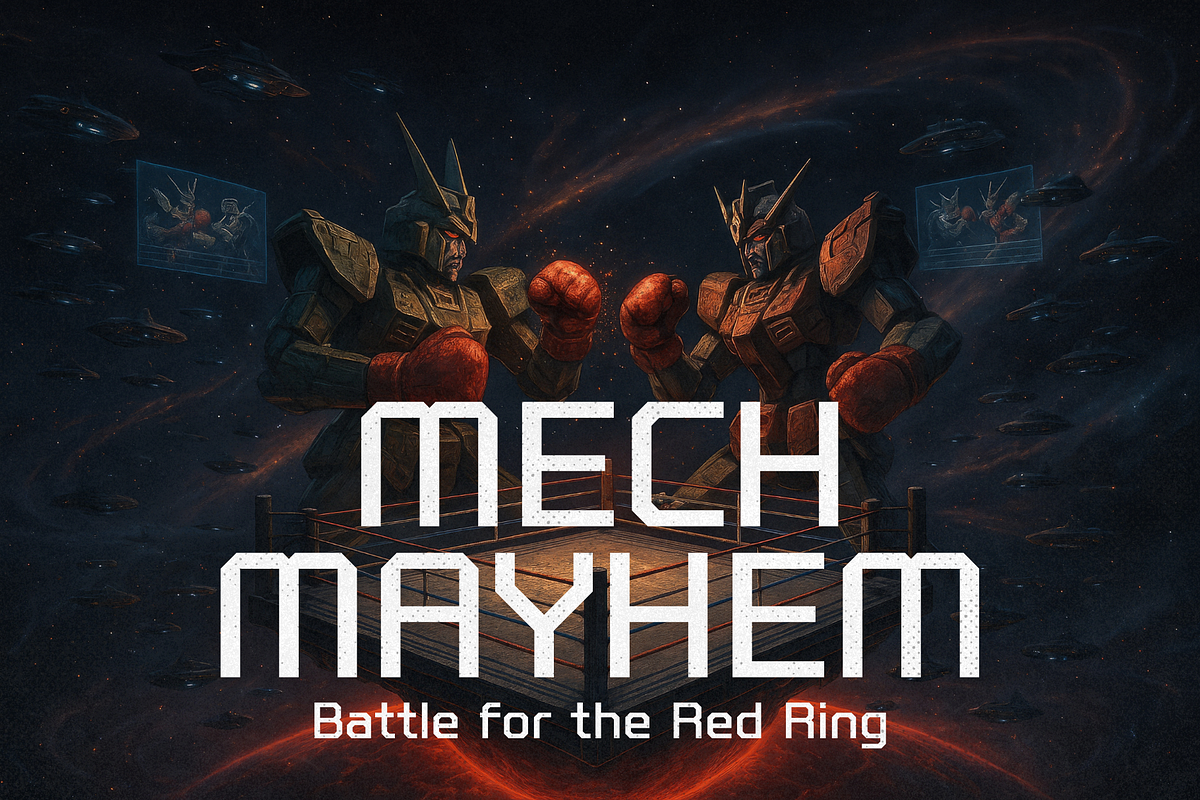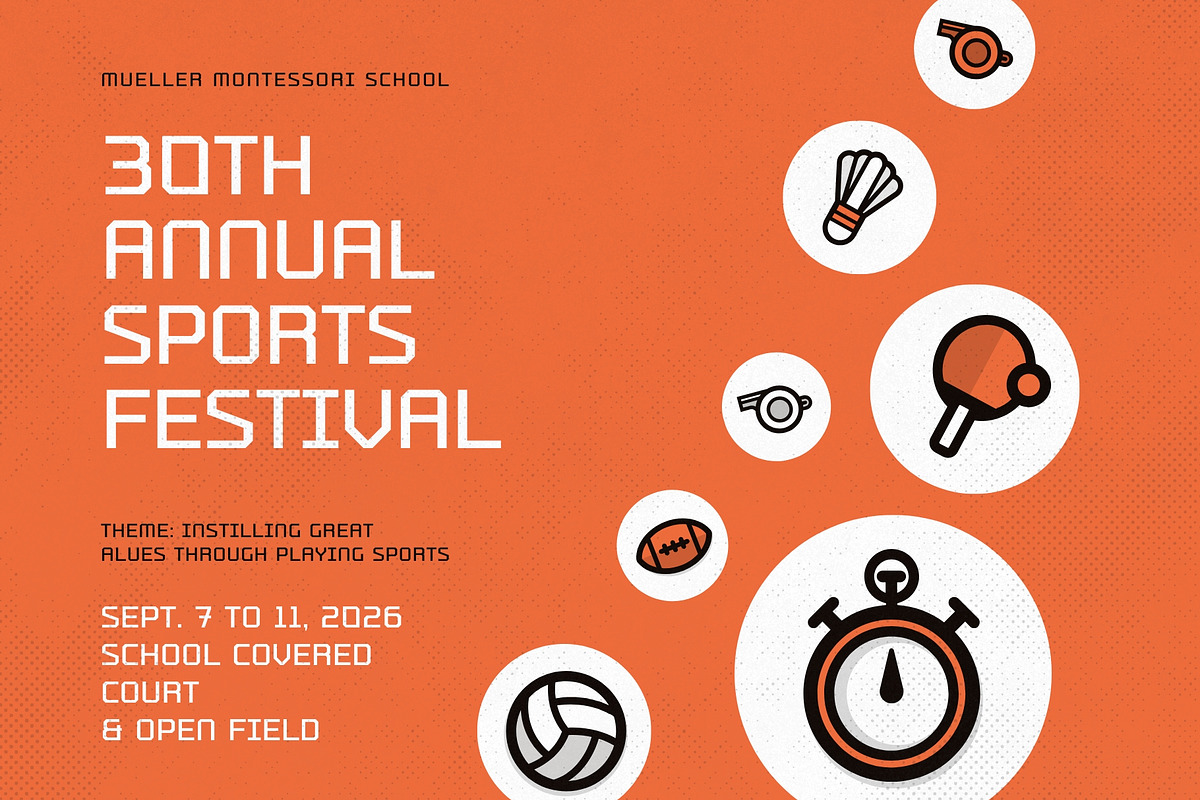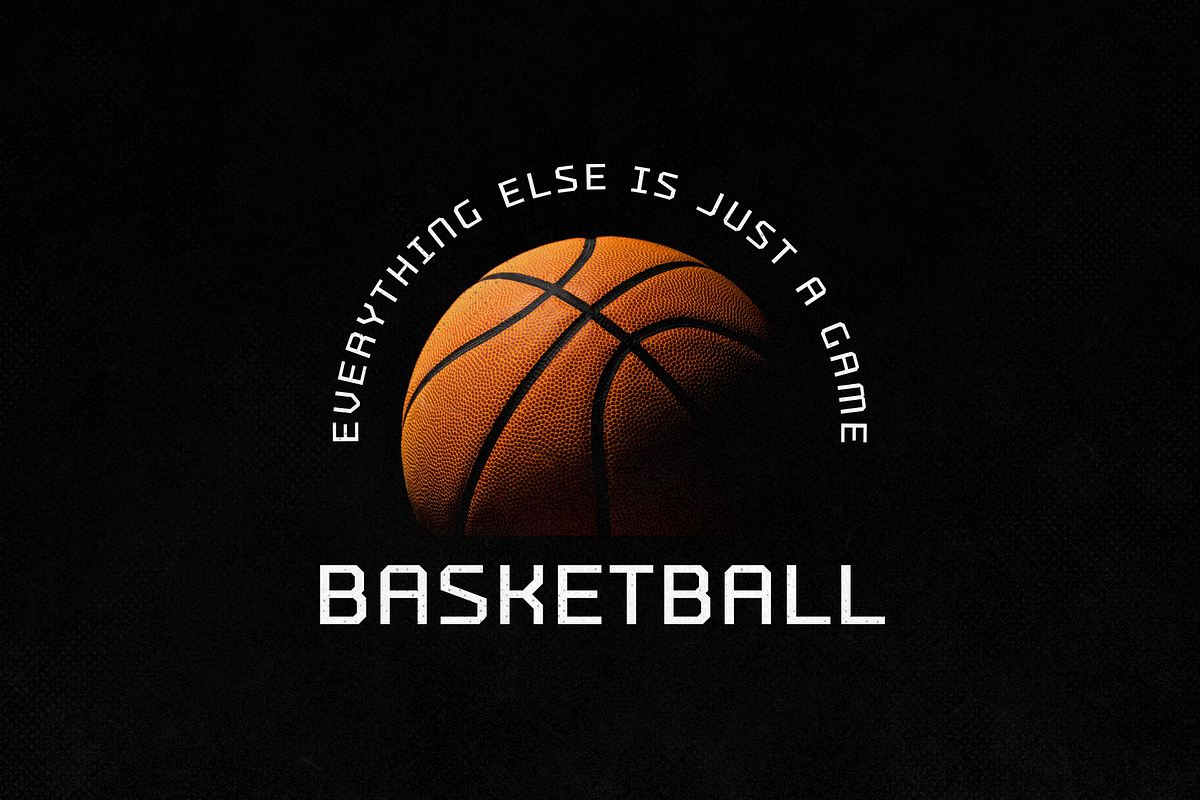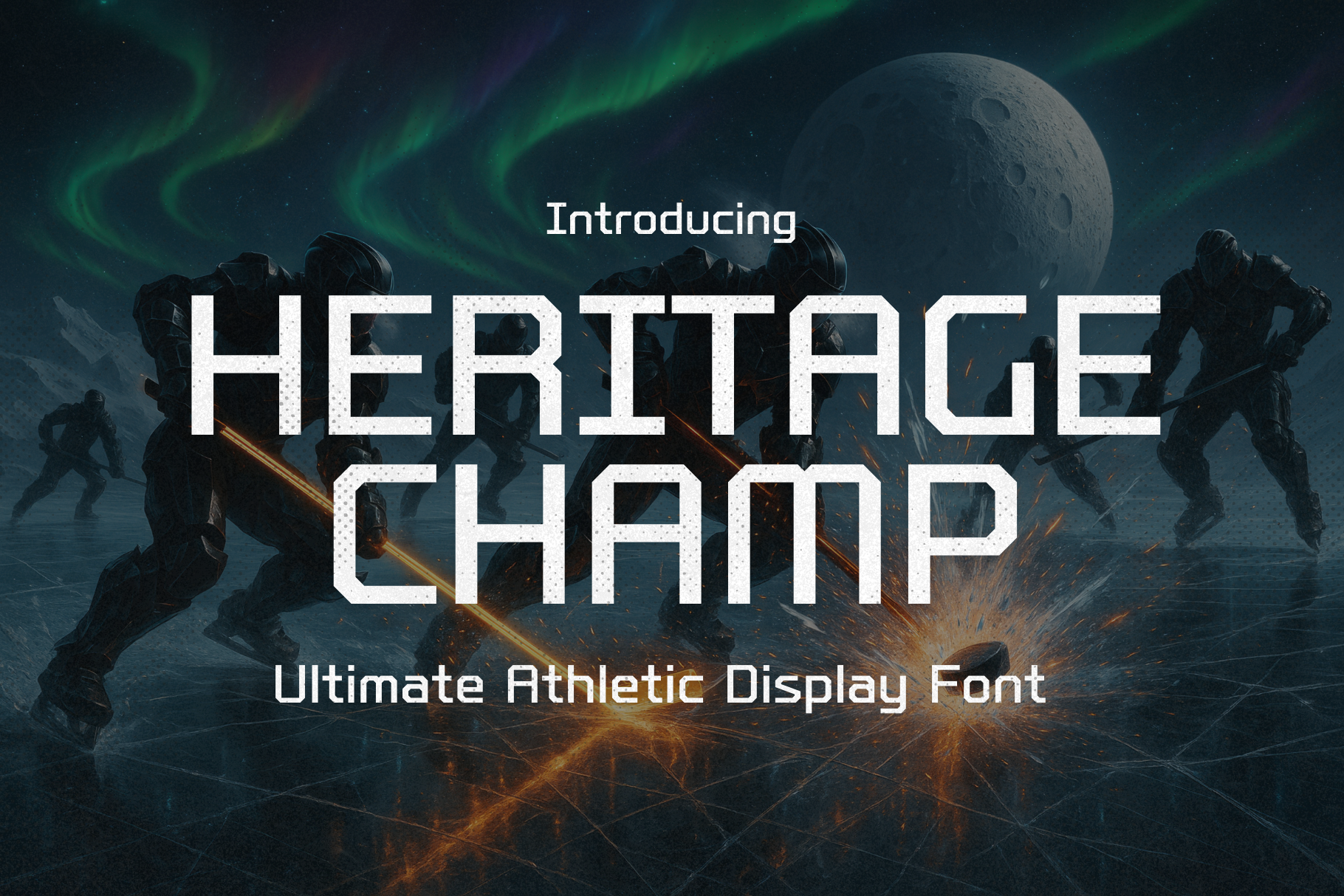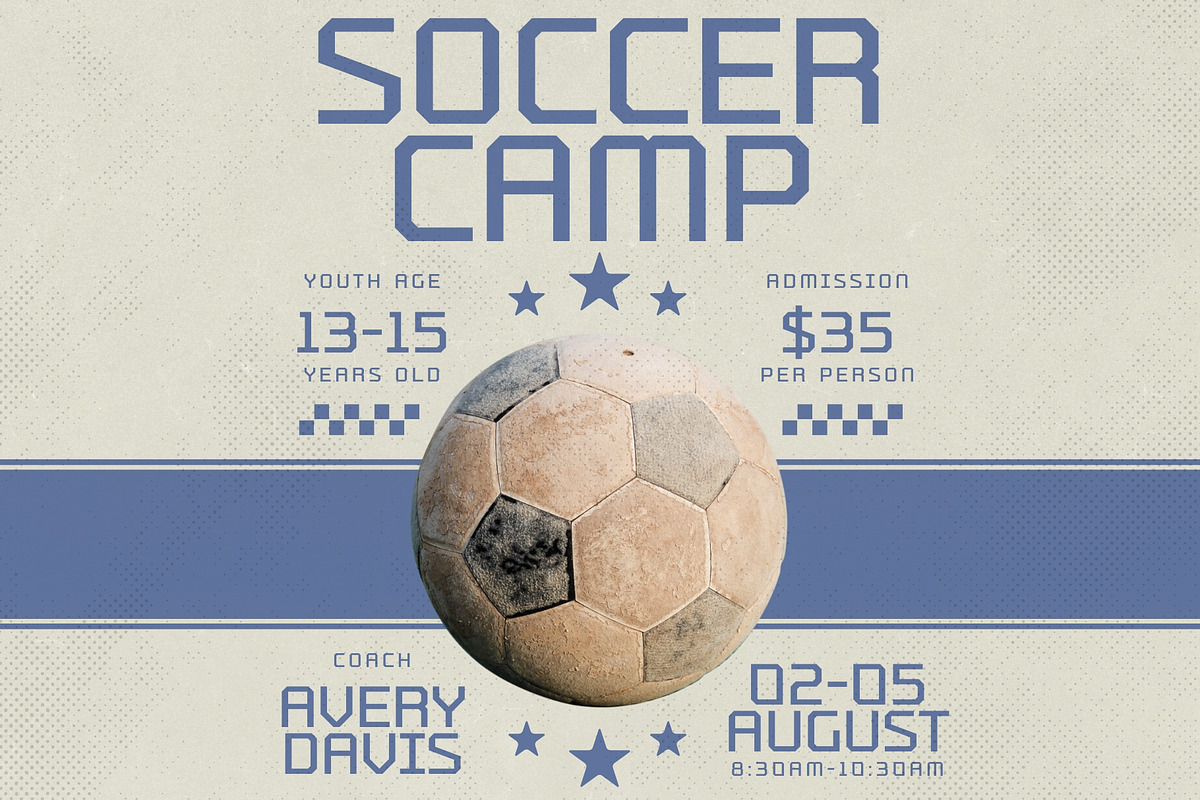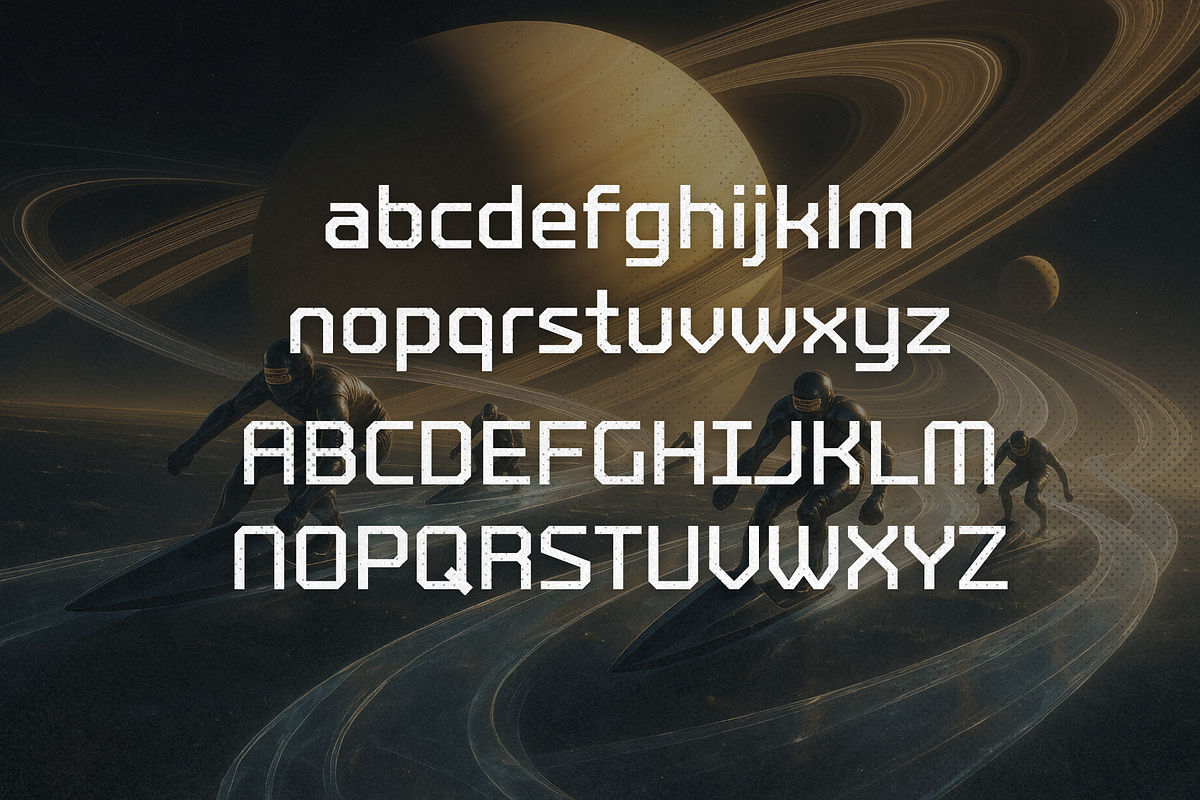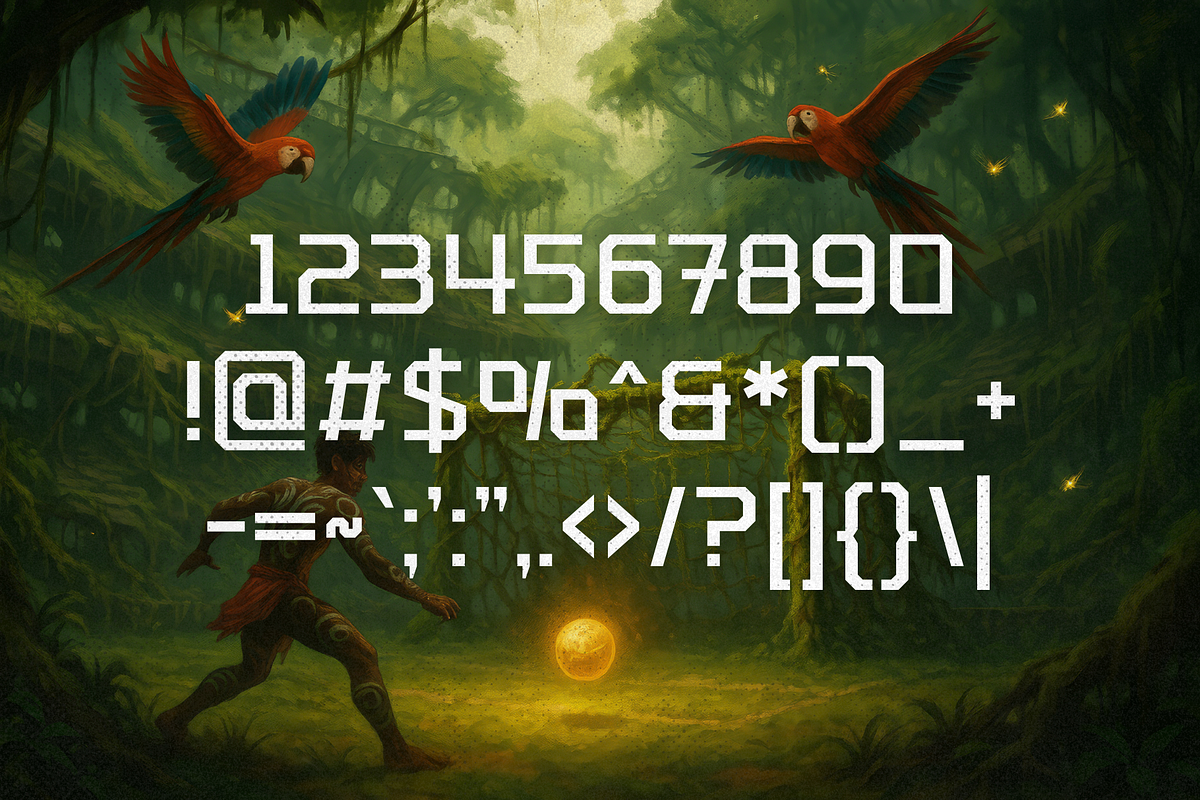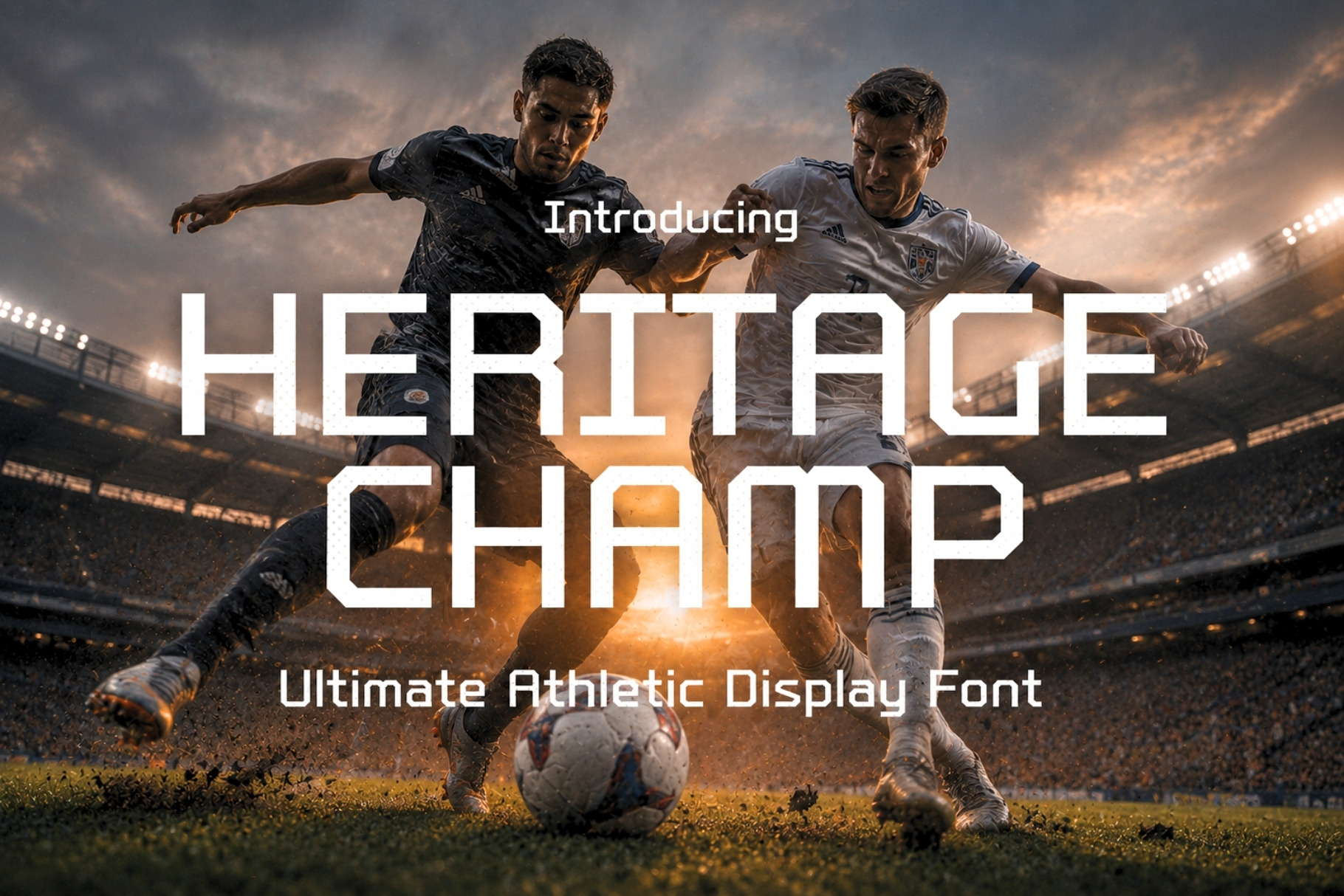
Heritage Champ - Sports Font
Heritage Champ is a bold and commanding sports display typeface built for champions. Whether you're designing for the roar of the stadium or the edge of the street, this font delivers powerful energy and unmistakable style. With its strong lines, dynamic curves, and confident stance, Heritage Champ captures the spirit of competition and the legacy of athletic greatness.
Perfectly suited for team jerseys, sports branding, game-day flyers, tournament banners, and merchandise, this versatile typeface brings instant impact to any design. From football and basketball to racing, baseball, and esports—Heritage Champ is your go-to font for athletic dominance.
Bring your A-game. Make your message impossible to ignore.